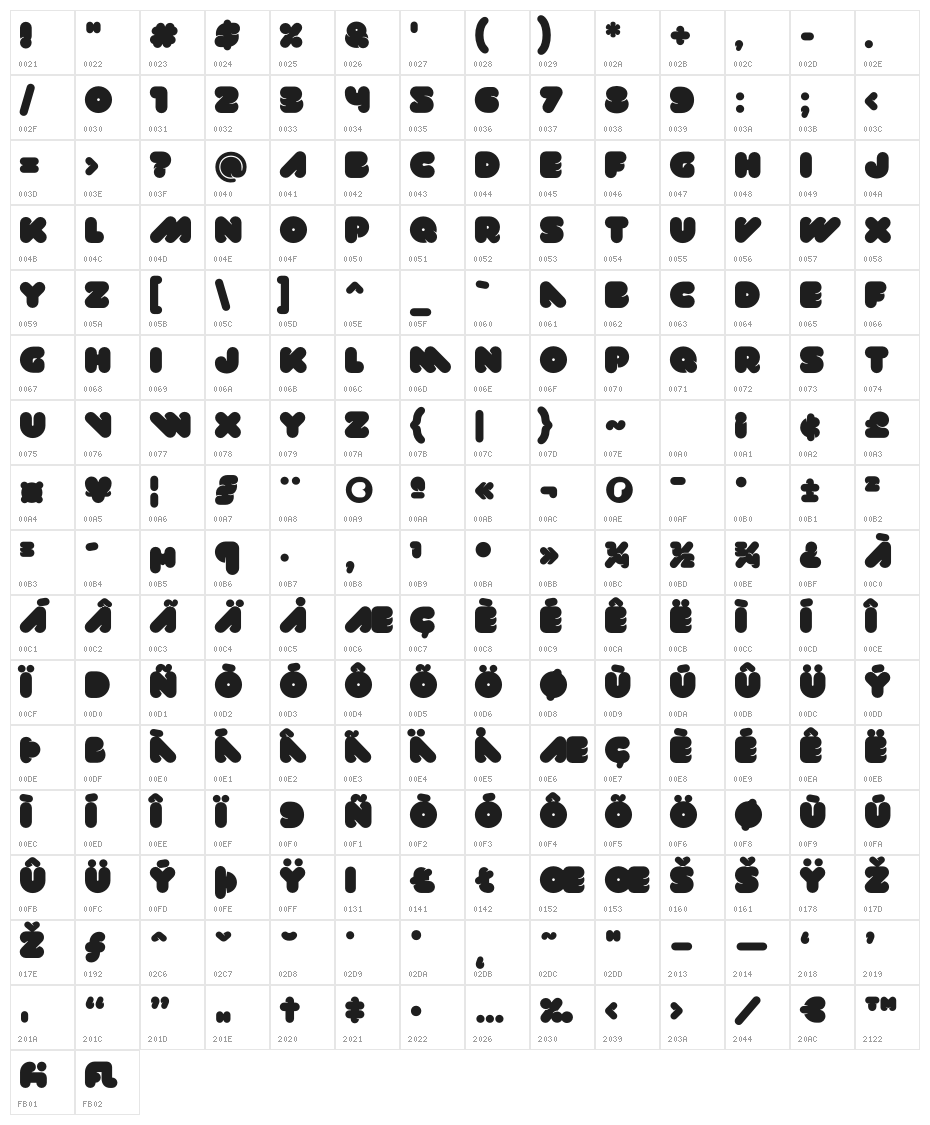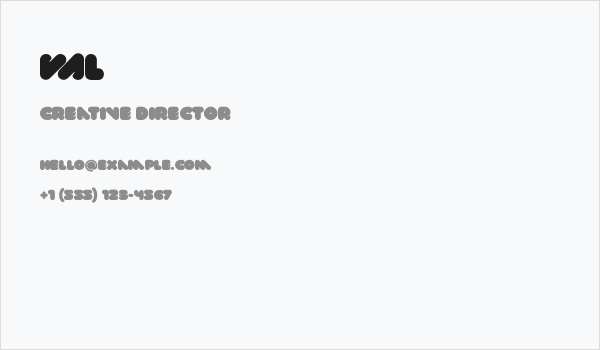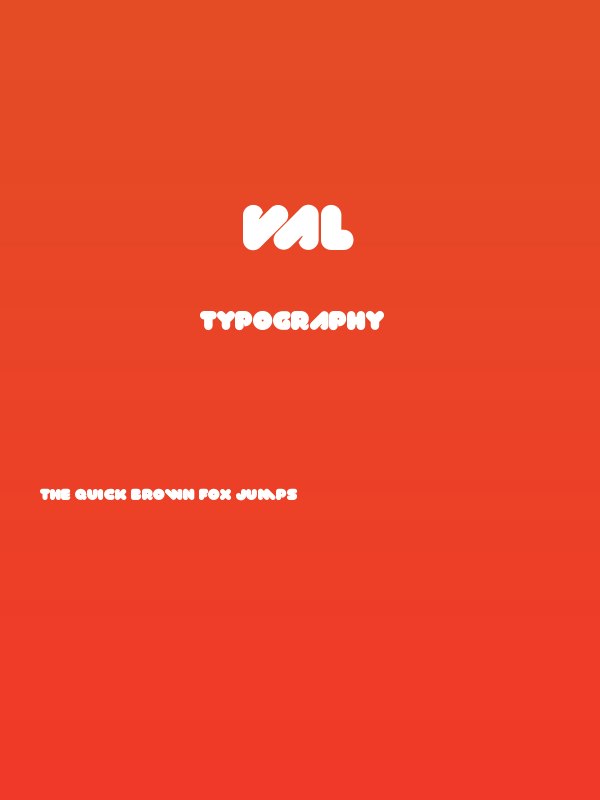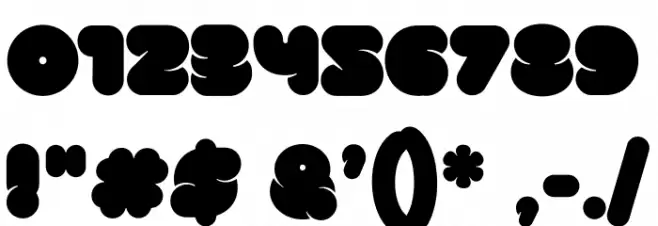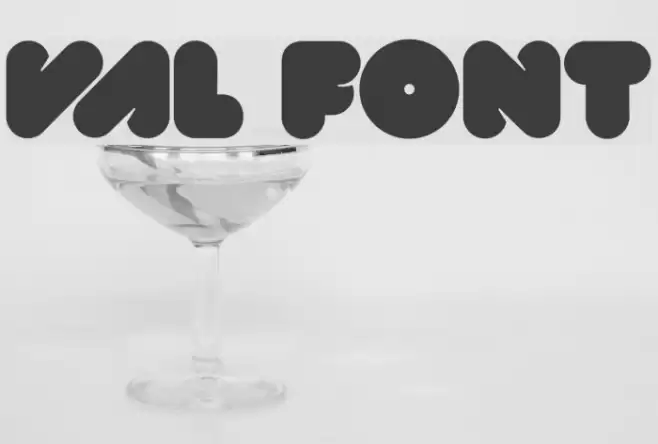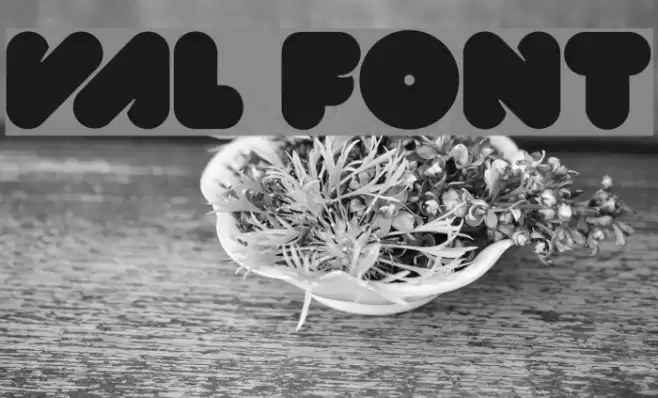
VAL Font
VAL Description
This font features a bold, rounded style with a playful and chunky appearance. The characters are heavily weighted, creating a strong visual impact. The rounded edges and thick strokes give it a soft, approachable feel, while maintaining a sense of modernity. The uniformity in stroke width across all characters contributes to its cohesive look. Its distinct style makes it suitable for eye-catching designs, where a bold statement is needed. The font includes a full set of uppercase and lowercase letters, numbers, and a variety of special characters, ensuring versatility in design applications.
| Use Case | Logos, Headlines, Posters |
| Proposed Projects | Ideal for branding, posters, children's books, and any design needing a bold, playful touch. |